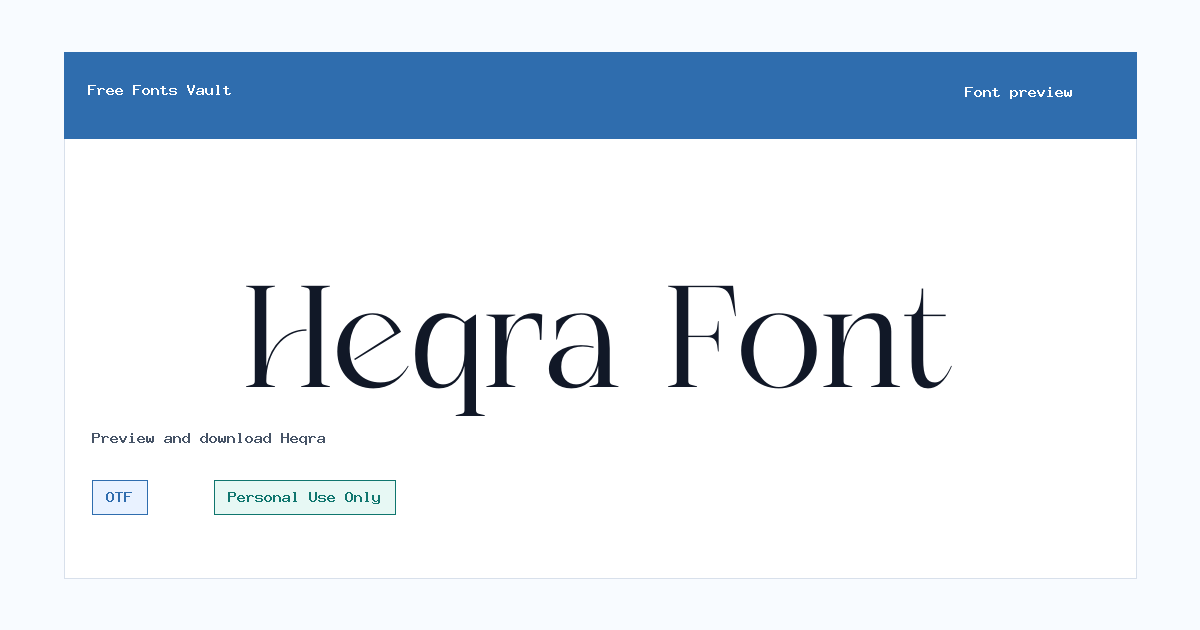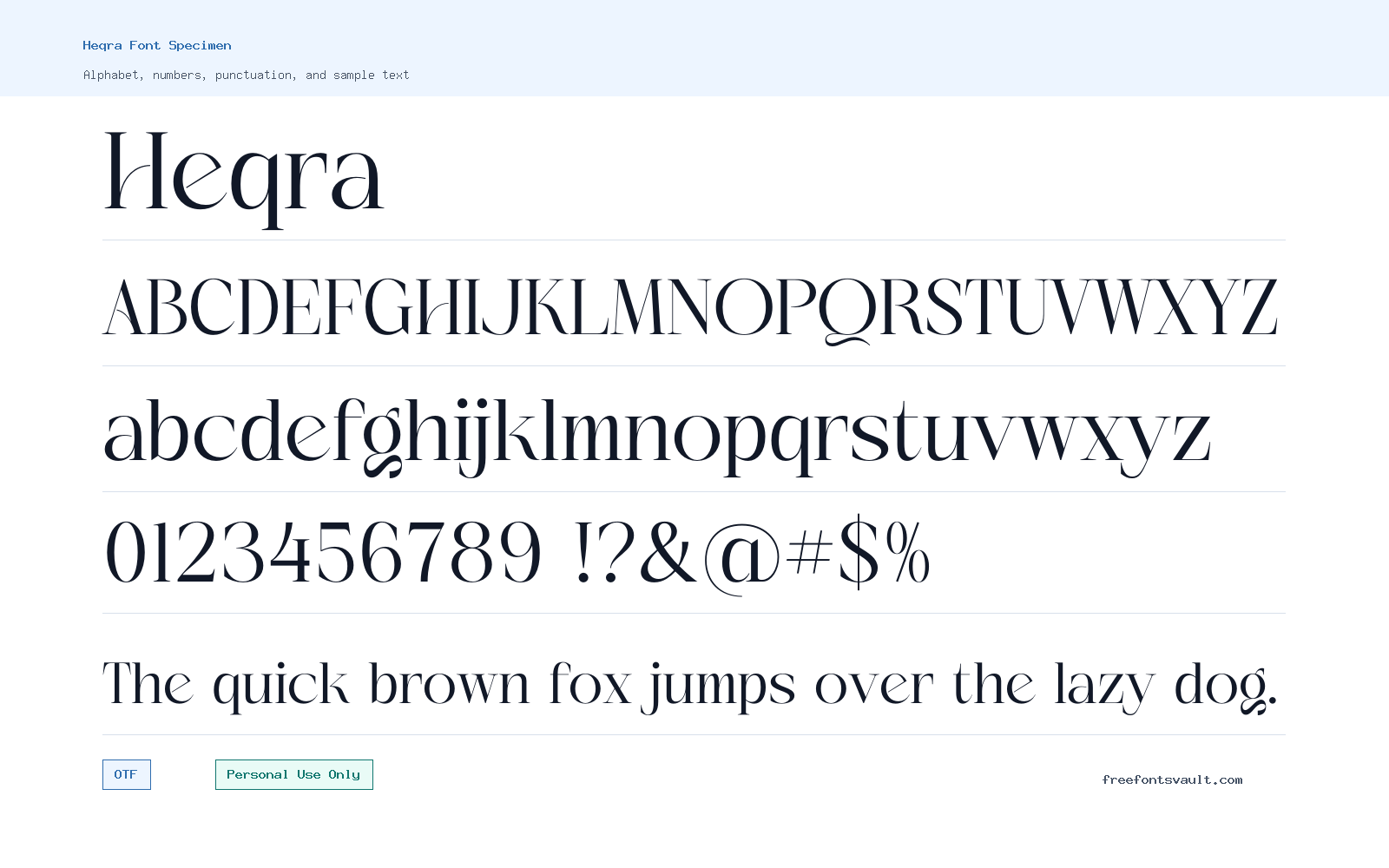
Heqra
Heqra font.
Heqra is a serif display font with a refined, editorial feel, offered in a regular OTF style for personal-use projects. It is a good choice to test when you need a font that feels formal, stylish, and more distinctive than a plain text serif.
About Heqra
Heqra works best as a display face rather than a long-reading body font. The regular weight gives you enough presence for titles, cover lines, poster text, brand mockups, and short typographic compositions. Because only one regular style is listed, it is most useful when your layout does not need a full family with bold, italic, or multiple weights. Try it in the preview with short words, names, product-style labels, and headline phrases to see how the letter shapes behave at larger sizes.
For designers, Heqra is worth testing in projects that need a serif with a polished mood. It can suit logo drafts, boutique-style packaging concepts, event posters, quote graphics, editorial headers, and web hero mockups. Keep the text short and give the letters enough spacing and room to breathe. If you use it for a logo concept, test it in black and white first, then check it at small sizes before adding color or texture. Some display serifs look impressive in large headlines but lose detail when reduced, so a quick size test is important before committing it to a design.
When pairing Heqra, keep the supporting type simple. A clean sans serif can balance the decorative nature of a display serif and make the layout easier to read. Use Heqra for the main title or brand-style wordmark, then pair it with a neutral sans serif for descriptions, buttons, captions, prices, and navigation. If you pair it with another serif, choose one with a quieter texture so the two fonts do not compete. In posters or social graphics, a simple hierarchy usually works best: Heqra for the headline, a plain text font for the message, and generous spacing between sections.
- Serif character that can support elegant logo drafts, poster titles, and editorial-style layouts
- Best used for short text where the letter shapes can be seen clearly
- Works well with simple sans serif pairings for cleaner reading sections
- Logo concepts and wordmark drafts
- Poster headlines and event graphics
- Editorial headers, cover-style titles, and quote layouts
- Web hero mockups and landing page typography tests
- Packaging concepts, boutique labels, and short brand presentations
- Personal design experiments, mood boards, and portfolio practice
What is Heqra best used for?
Heqra is best for short display text such as logo drafts, poster headlines, editorial titles, quote graphics, and web hero mockups.
What font pairs well with Heqra?
A clean sans serif is usually the safest pairing. Use Heqra for the headline or brand-style text, then use the sans serif for paragraphs, captions, buttons, and smaller details.